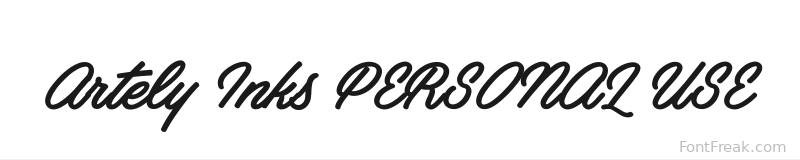
Artely Inks PERSONAL USE
About Artely Inks PERSONAL USE
Artely Inks PERSONAL USE is a striking script font designed by Mans Greback, ideal for those seeking a unique and artistic flair in their typography. This font showcases a blend of elegance and creativity, characterized by its fluid, handwritten style. The strokes exhibit a moderate weight, offering a balance between boldness and readability, while the gentle contrast adds a touch of sophistication. The spacing is generous, which enhances legibility and gives the text a graceful appearance, making it perfect for various design applications.
The Artely Inks PERSONAL USE font free download is particularly suited for a range of creative projects. Graphic designers can utilize it for wedding invitations, where its artistic style can evoke romance and joy. Small business owners may find it ideal for branding, especially in creative sectors like artisanal products or boutique shops, where a personal touch can resonate with clients. Content creators can enhance their social media posts or blog graphics, using this font to draw attention and convey a distinctive voice. Additionally, it works beautifully on custom stationery, providing a personal touch that can elevate everyday correspondence.
Targeting graphic designers, small business owners, and content creators, Artely Inks PERSONAL USE offers a versatile solution for anyone looking to add a bespoke element to their projects. Its unique aesthetic not only stands out but also invites viewers to engage with the content in a more meaningful way. The font's whimsical yet sophisticated demeanor will leave a lasting impression, making it a cherished choice for personal use. With its distinctive style and creative potential, Artely Inks truly shines as a go-to font for those aiming to make their designs pop.